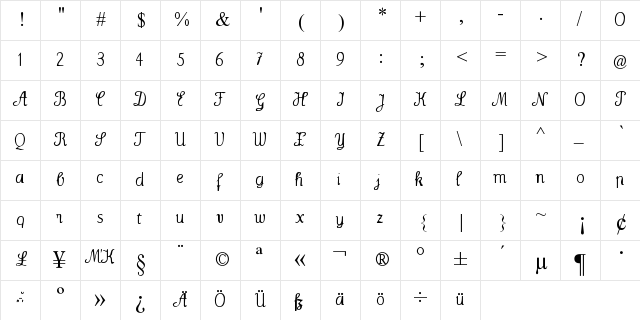
Wenceslas Regular Font Preview
Wenceslas Regular
Design Context for Wenceslas Typeface
Wenceslas is a composed and adaptable typeface that performs quietly and consistently across a wide range of design contexts.